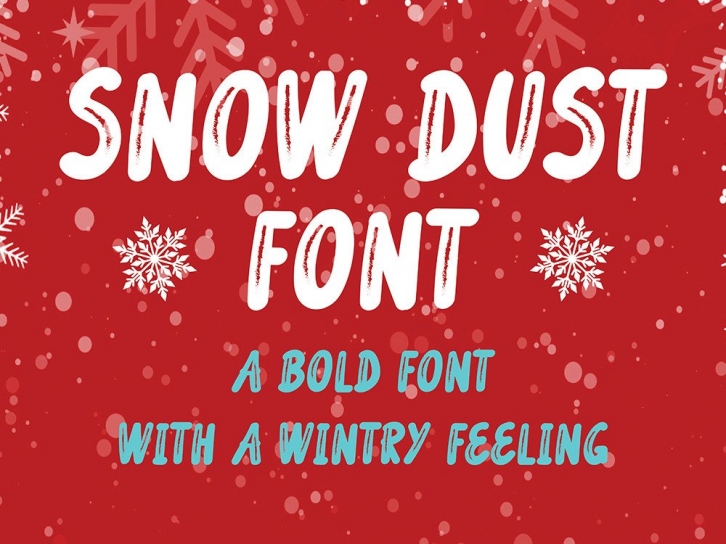
Snow Dust is a cool, simple and brushed display font, resembling snow on each character. No matter the topic, this font will be an incredibly asset to your fonts’ library, as it has the potential to elevate any creation.Â